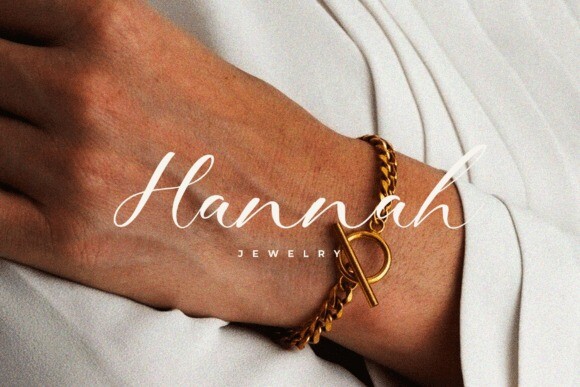
Blink Signature Font
Blink Signature Font is an elegant calligraphy script font that brings a touch of sophistication and personal flair to your designs. Perfectly suited for a variety of applications from wedding invitations and greeting cards to logos and branding materials, this font is designed to make your text stand out with grace and beauty.